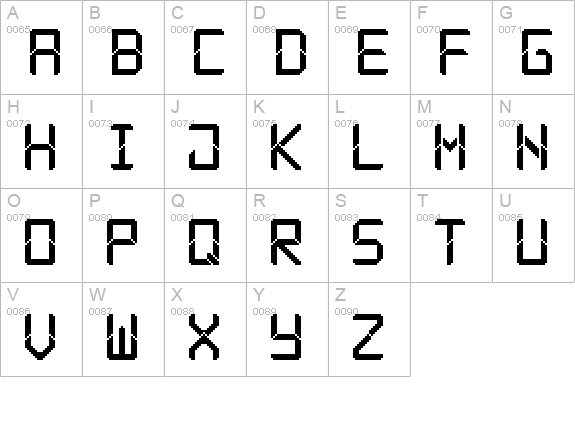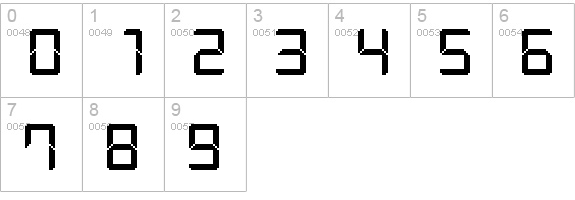
Modern LCD-7 Font Details
Introducing the captivating and versatile Modern LCD-7 font, a true gem in the world of digital typography. This innovative and sleek typeface effortlessly blends the classic LCD display style with a modern twist, making it the perfect choice for a wide range of design projects. With its clean lines and sharp edges, Modern LCD-7 font exudes a sense of precision and sophistication. Its bold and straight-forward letterforms are expertly crafted to ensure optimal legibility, whether used in small sizes for high-resolution screens or in larger formats for eye-catching displays. One of the most remarkable aspects of Modern LCD-7 font is that it is completely free to download at FontsMarket.com. This means that designers, creatives, and enthusiasts alike can easily access this remarkable font and incorporate it into their projects without any financial constraints. Its availability for free allows for endless possibilities, as users can explore and experiment with this font in various contexts, from digital interfaces to print materials and everything in between. Whether used for website headers, signage, branding materials, or even futuristic designs, Modern LCD-7 font adds a touch of sophistication and modernity to any project. Its distinctive aesthetic and attention to detail make it a standout choice for those seeking a font that seamlessly blends functionality and style. Embrace the digital era and elevate your designs with the remarkable Modern LCD-7 font. Available for free download at FontsMarket.com, this font empowers designers to create visually stunning and impactful works of art. Stay ahead of the curve and experience the endless possibilities that Modern LCD-7 font has to offer.